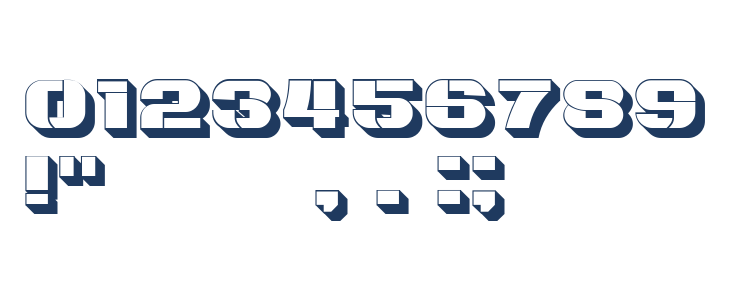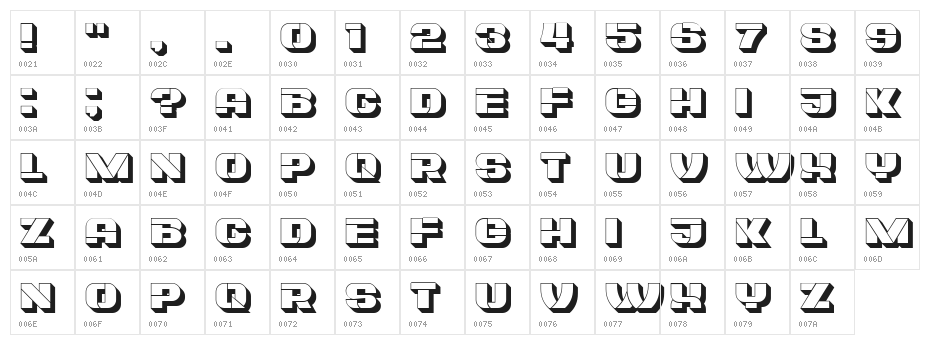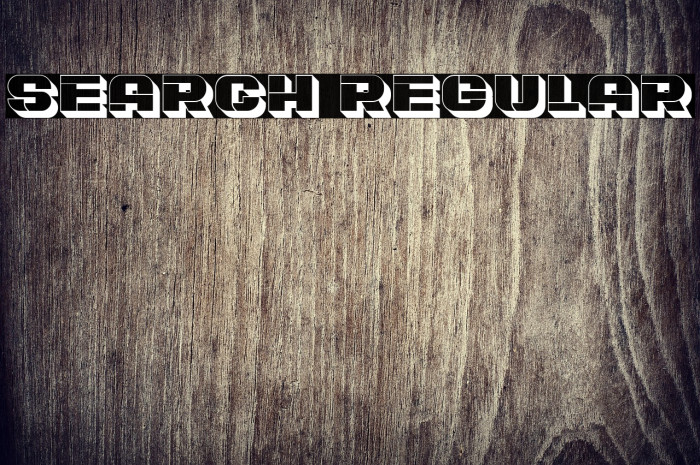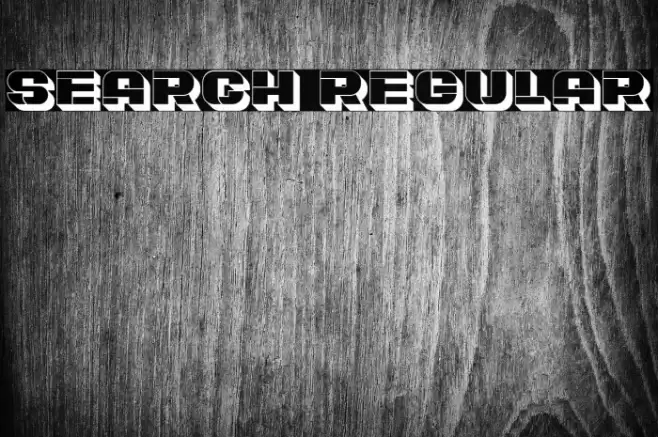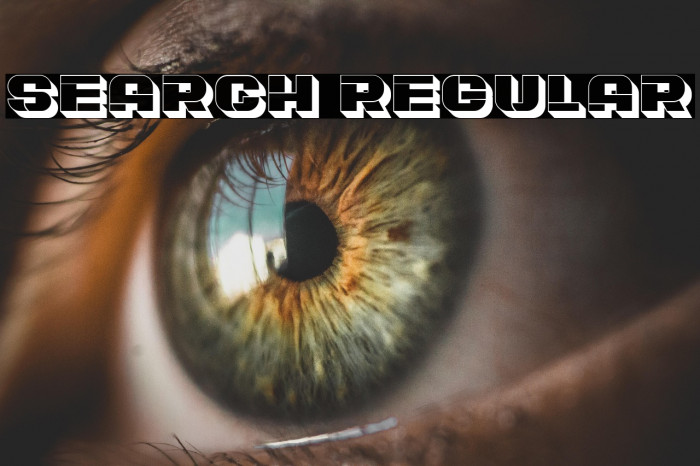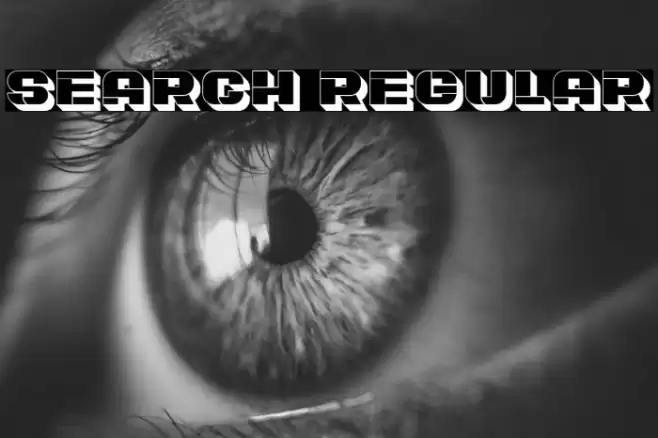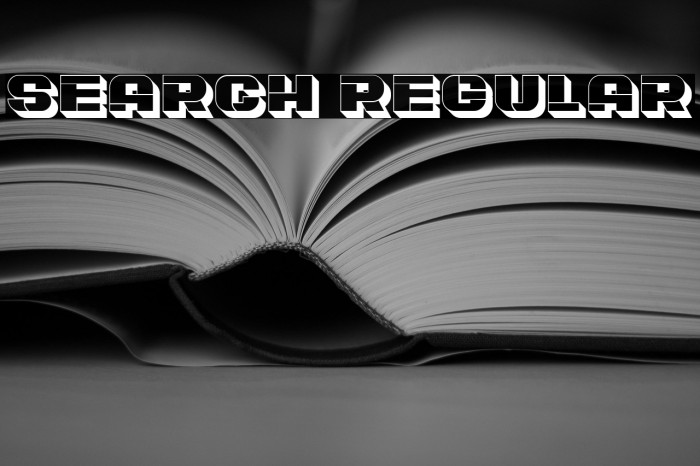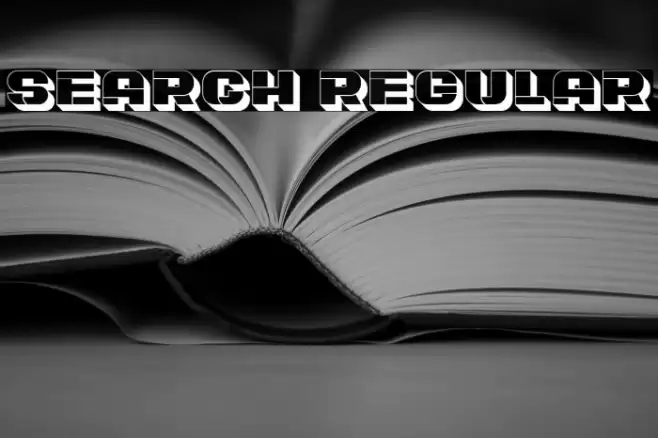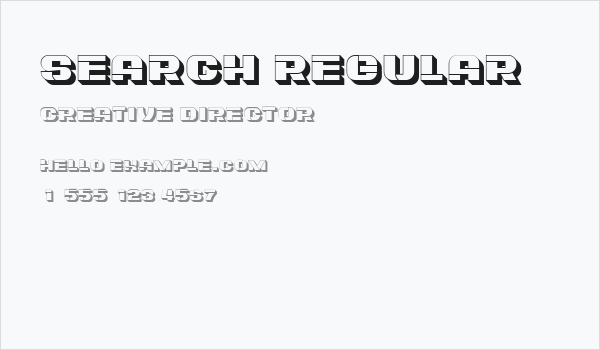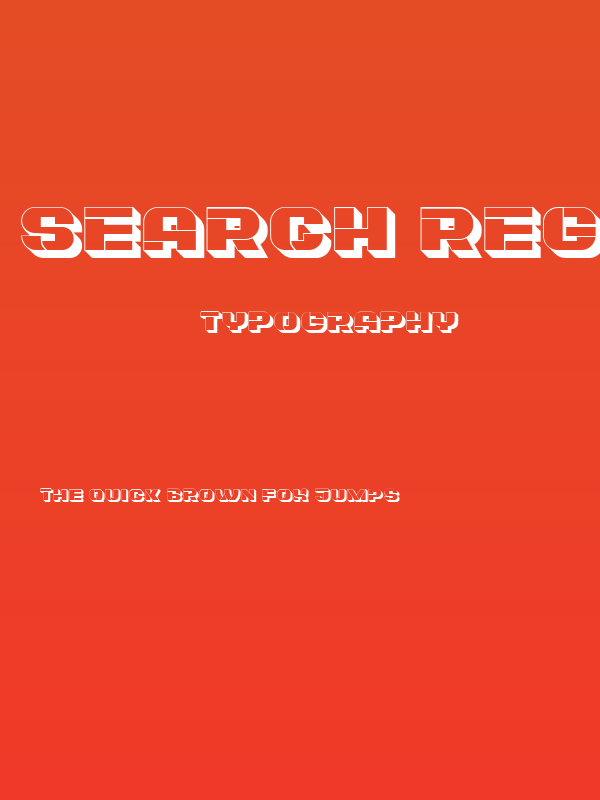
Search Regular Font
Search Regular Description
This font features a bold, three-dimensional design with a strong shadow effect that gives each character a striking, impactful appearance. The uppercase letters are blocky and geometric, with a consistent width and height that enhances their readability. The numbers follow the same bold style, maintaining uniformity across the character set. The special characters are designed to match the overall aesthetic, ensuring cohesion. This font's unique 3D effect makes it stand out, ideal for eye-catching designs.
| Proposed Projects | Ideal for poster designs, headlines, logos, and any project requiring a bold, attention-grabbing font. |